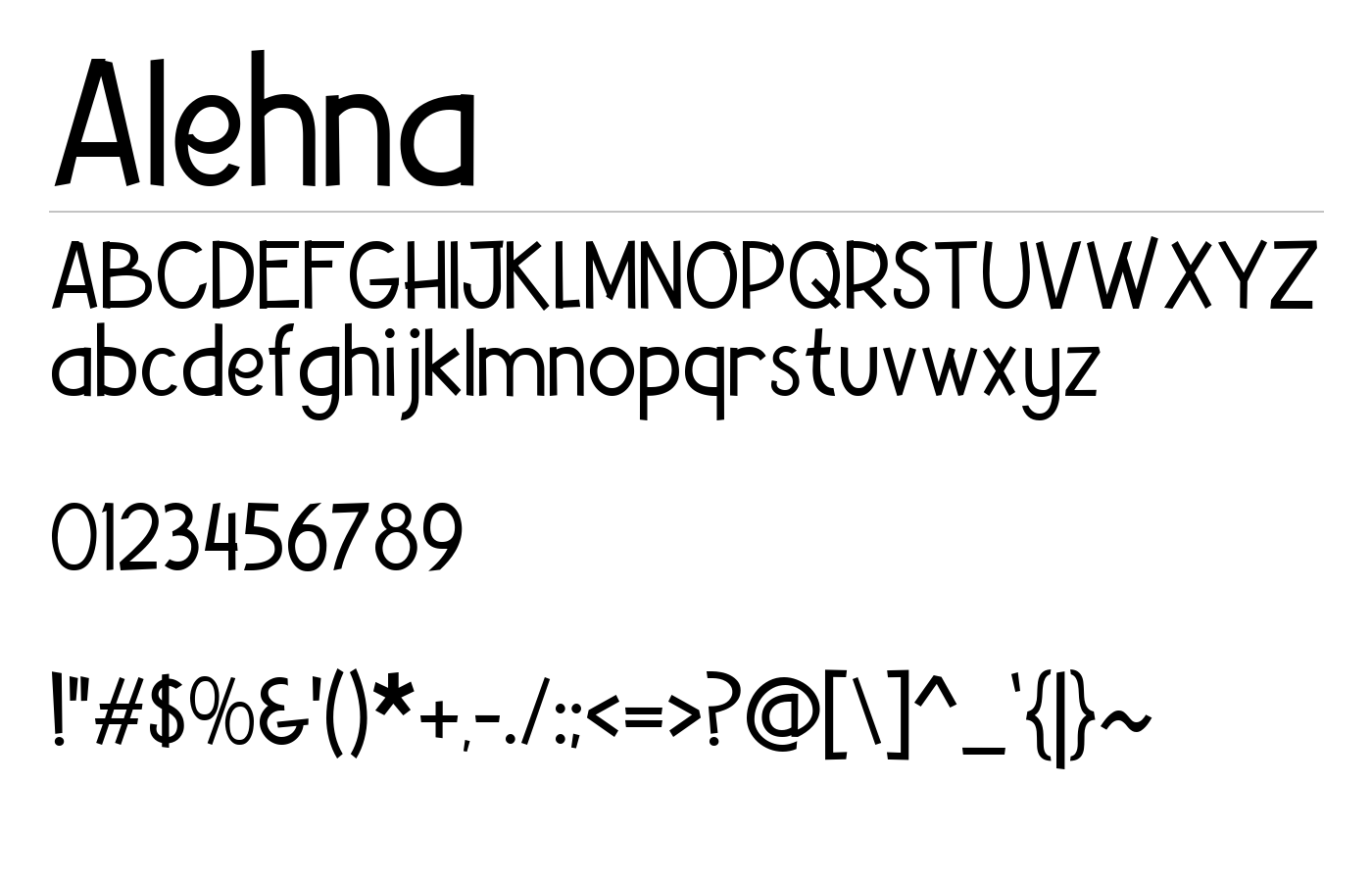
Alehna is a playful and modern sans serif font with a casual, hand-drawn feel. Its slightly irregular letterforms and moderate contrast give it an approachable and friendly personality, making it perfect for creative branding, children’s content, and informal editorial use. The font’s clean lines and distinctive shapes ensure it remains readable and engaging both in headlines and short texts.
Alehna Font
About Alehna Font
| Font family | Alehna Font |
| Designer | Musthafa Kamal Emje |